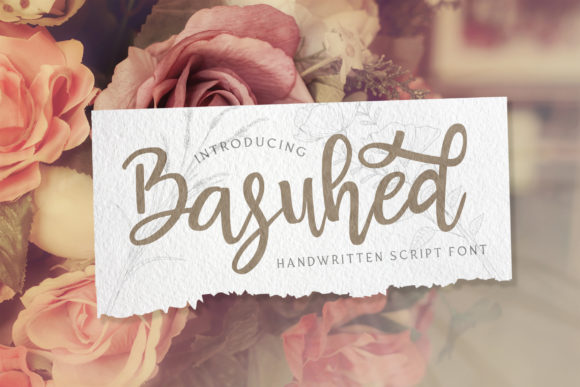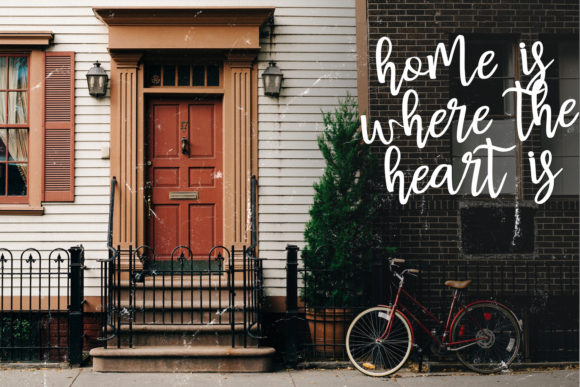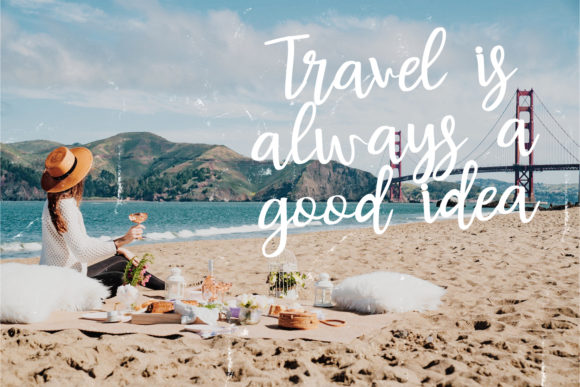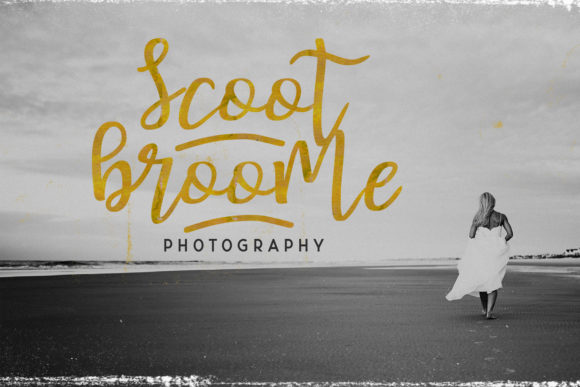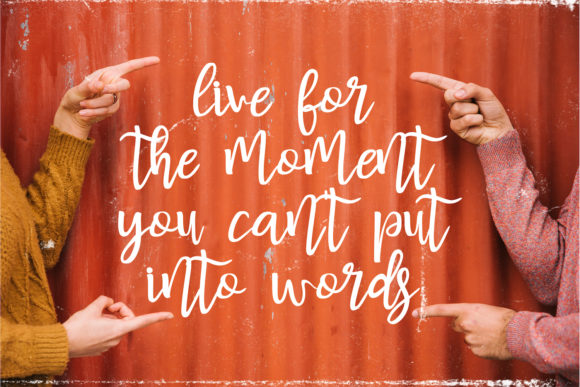
About Basuhed Font
Basuhed is a relaxed and beautiful handwritten font. It is PUA encoded which means you can access all of the glyphs and swashes with ease! It features a varying baseline, smooth lines, gorgeous glyphs and stunning alternates. It maintains its classy calligraphic influences while feeling contemporary and fresh. Fall in love with this font and bring your projects to the highest levels!